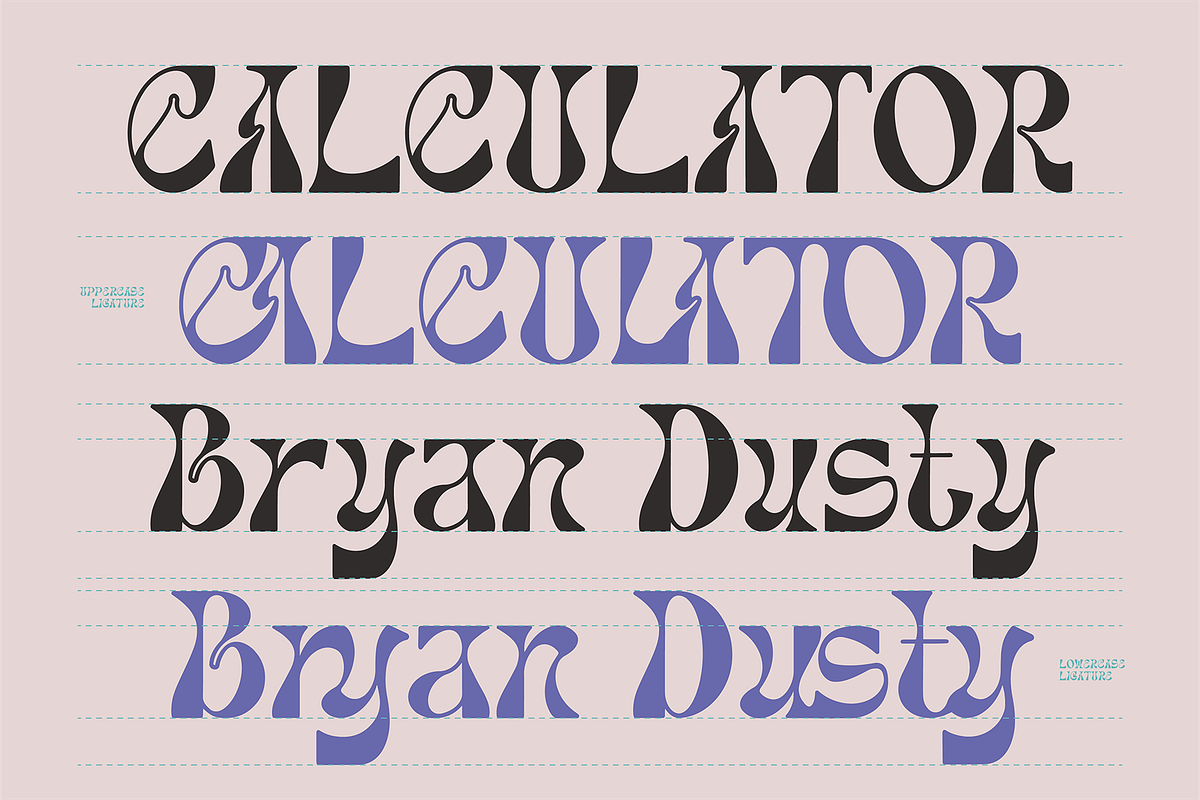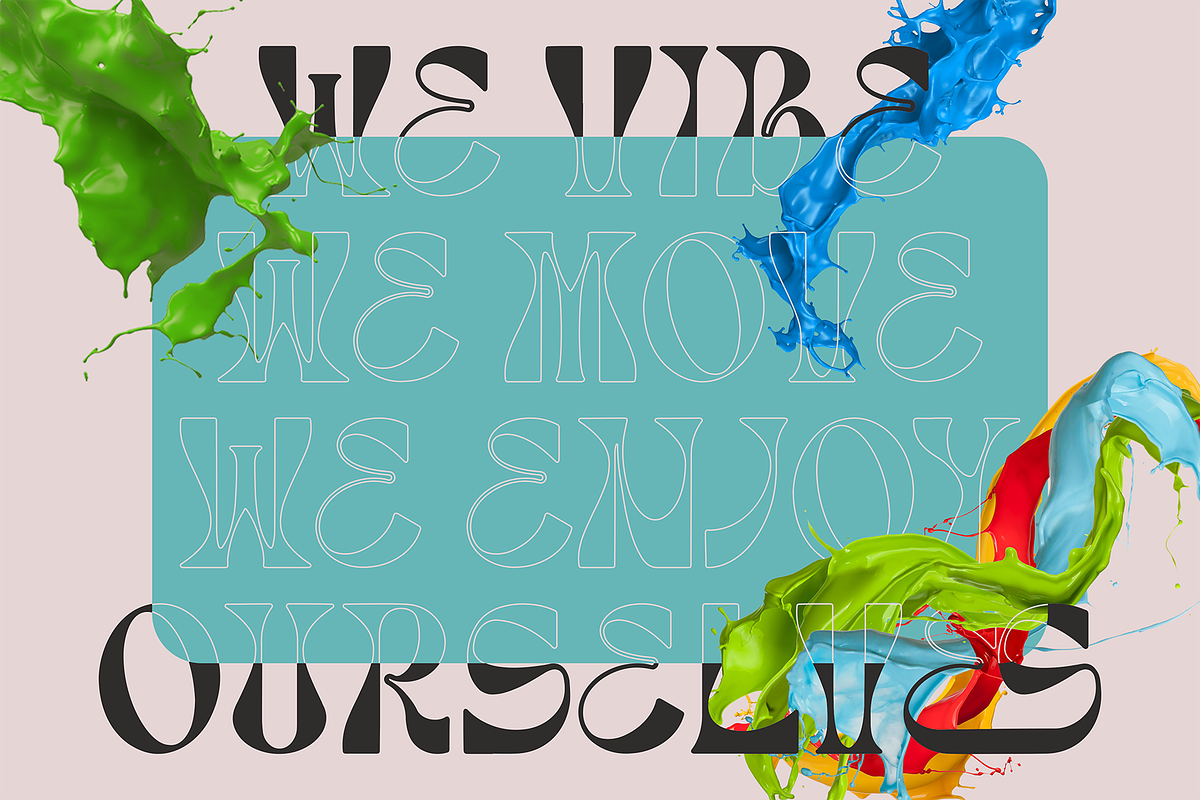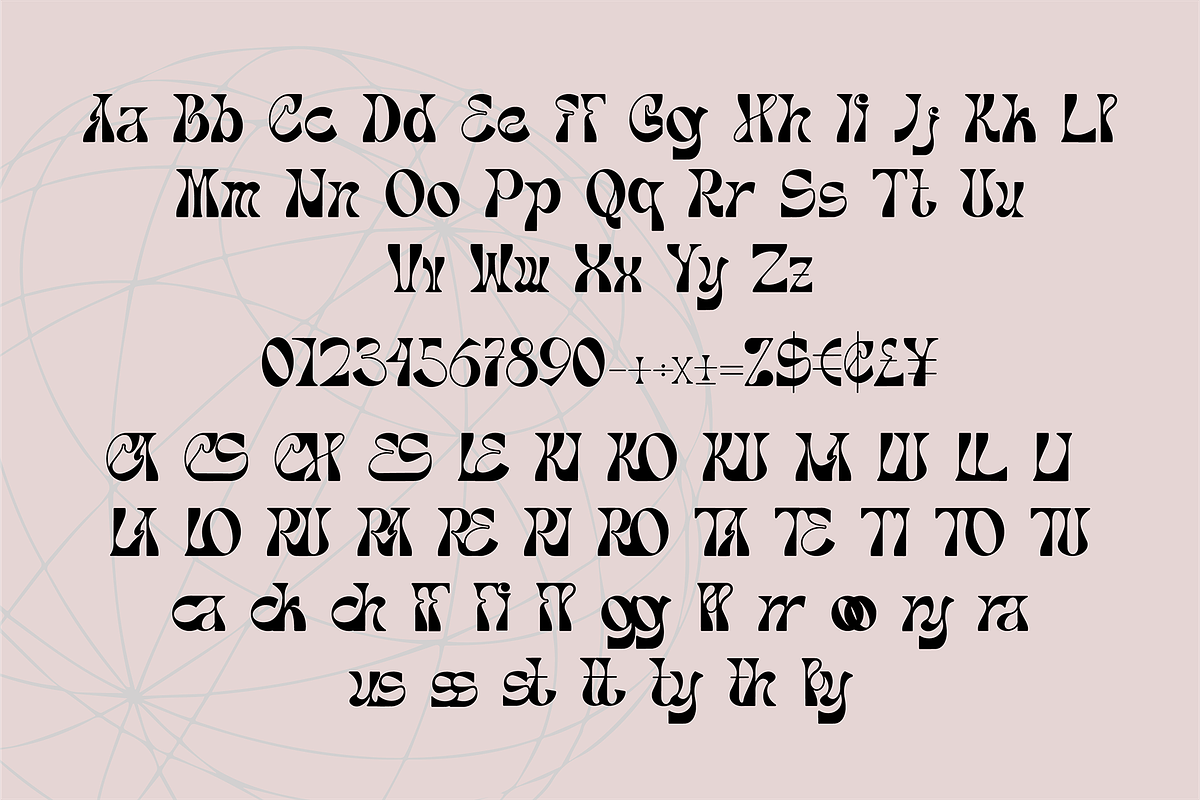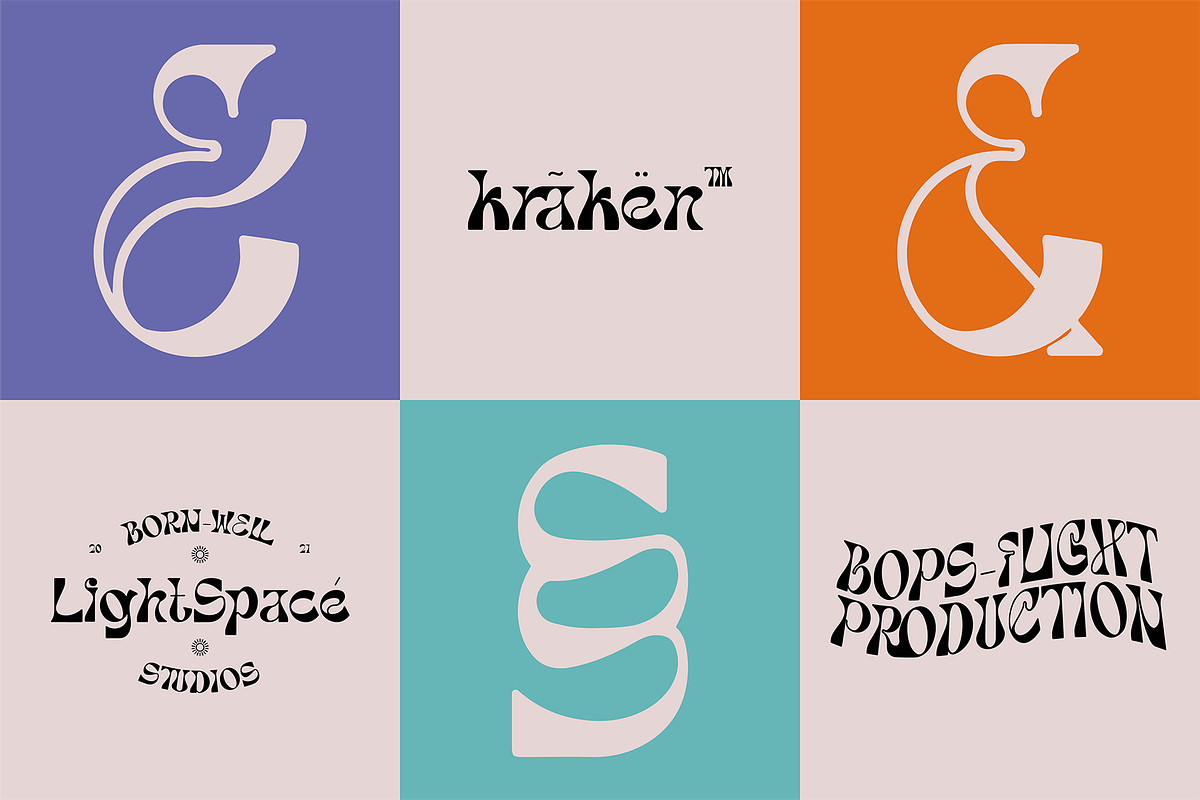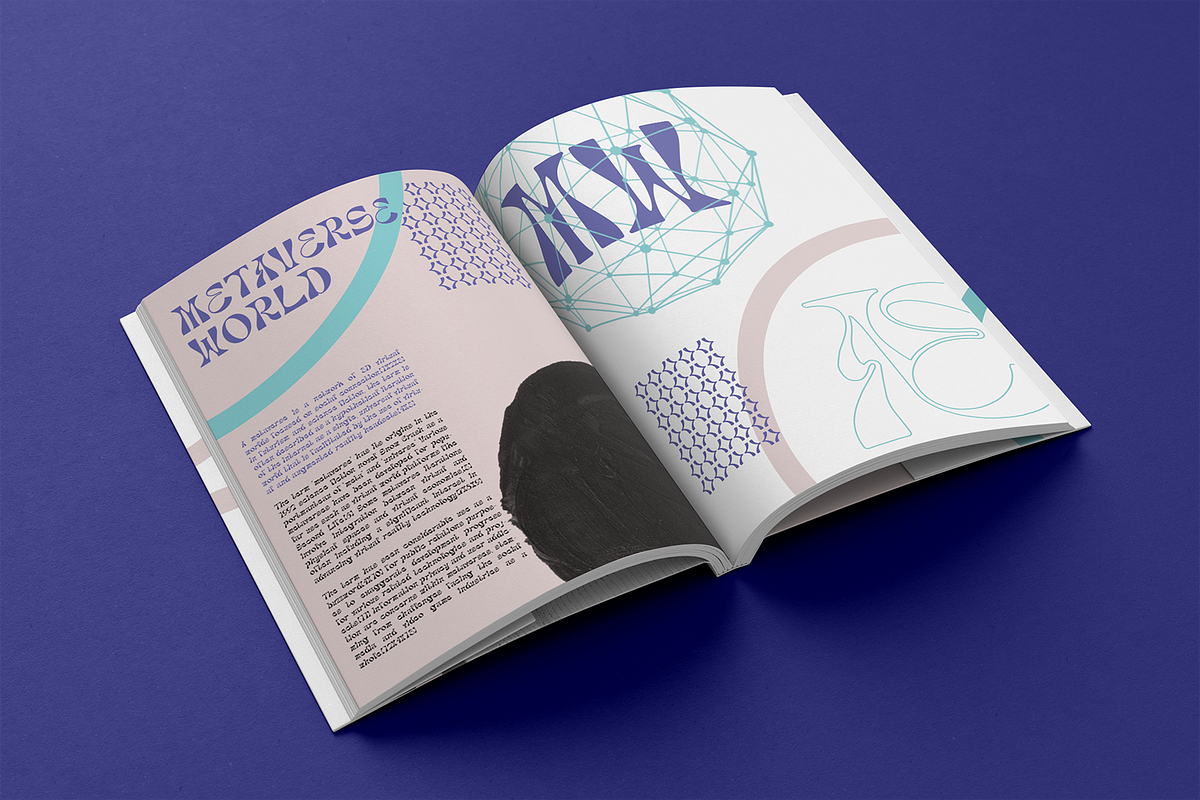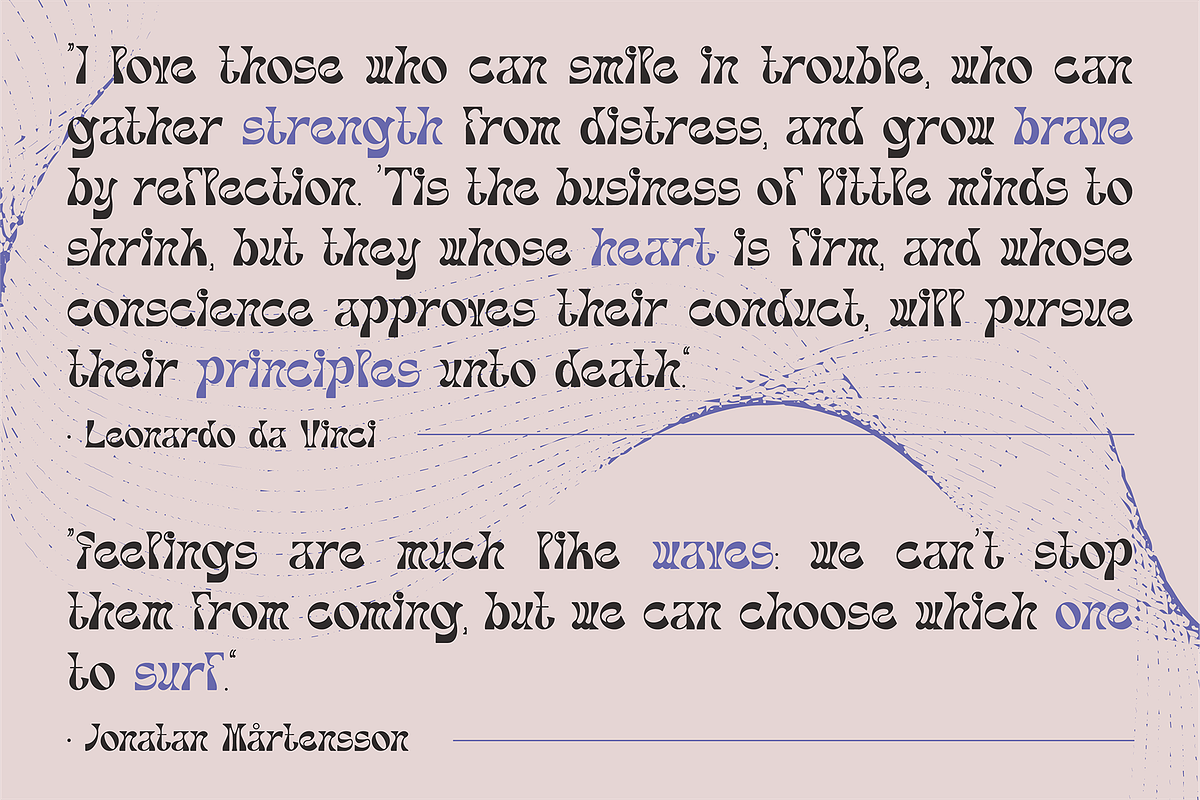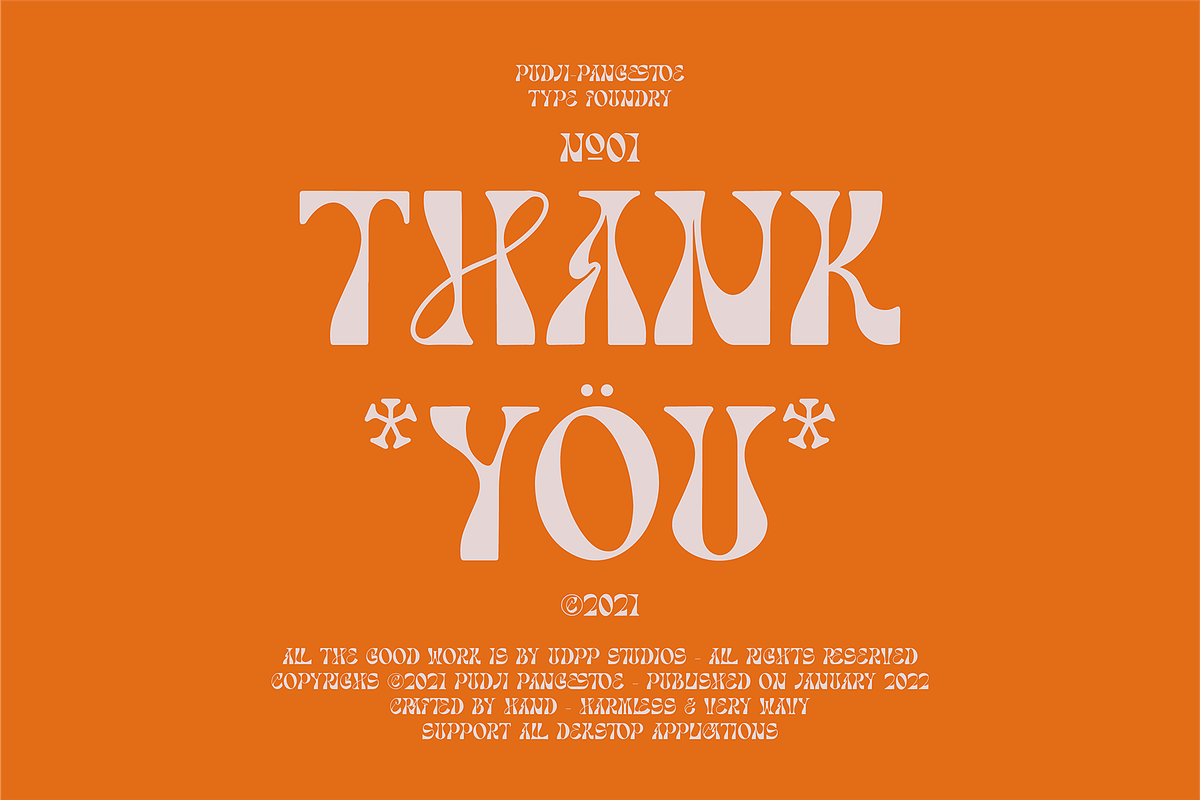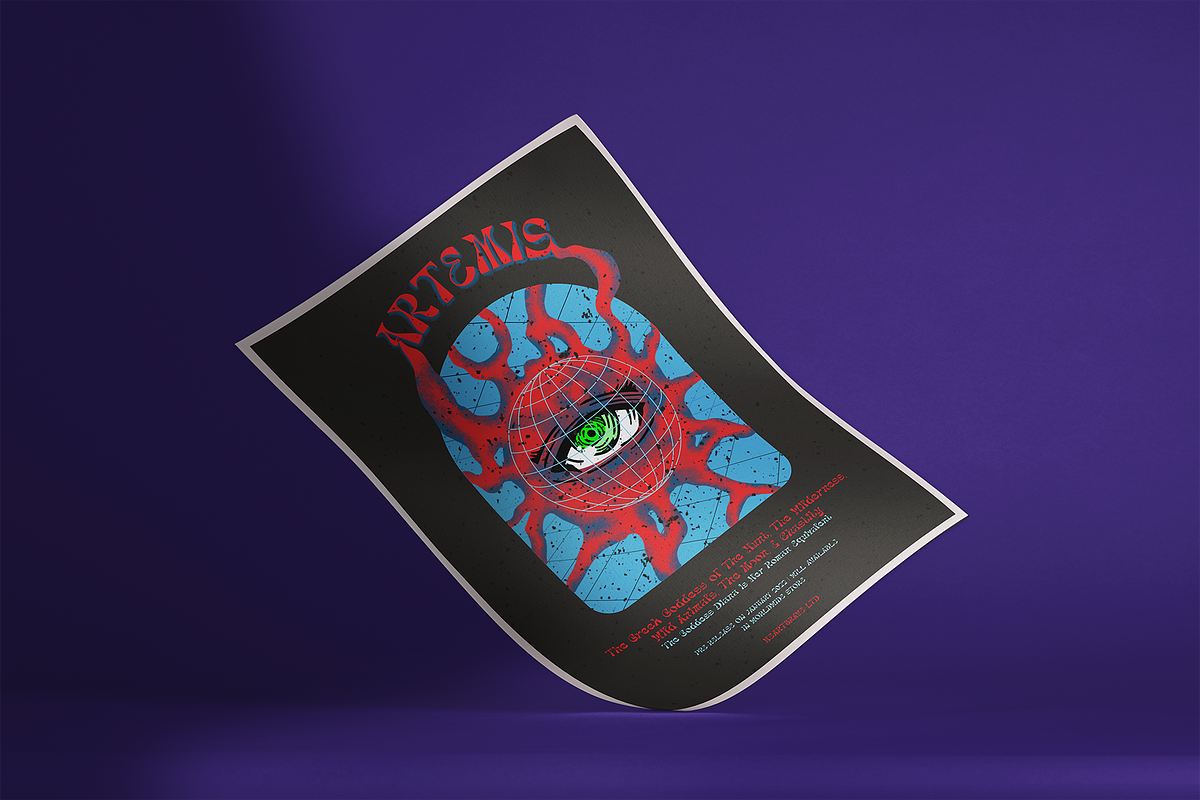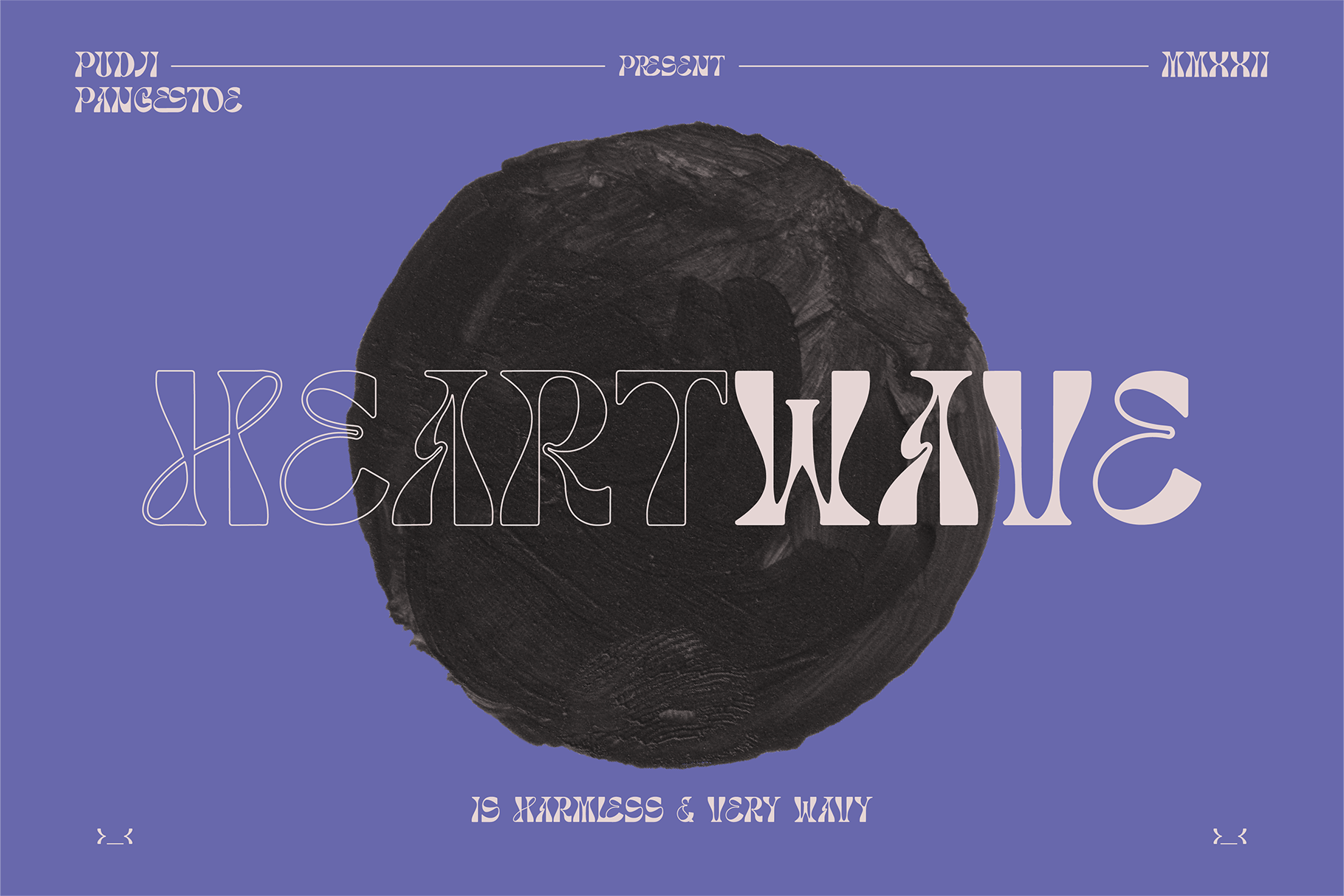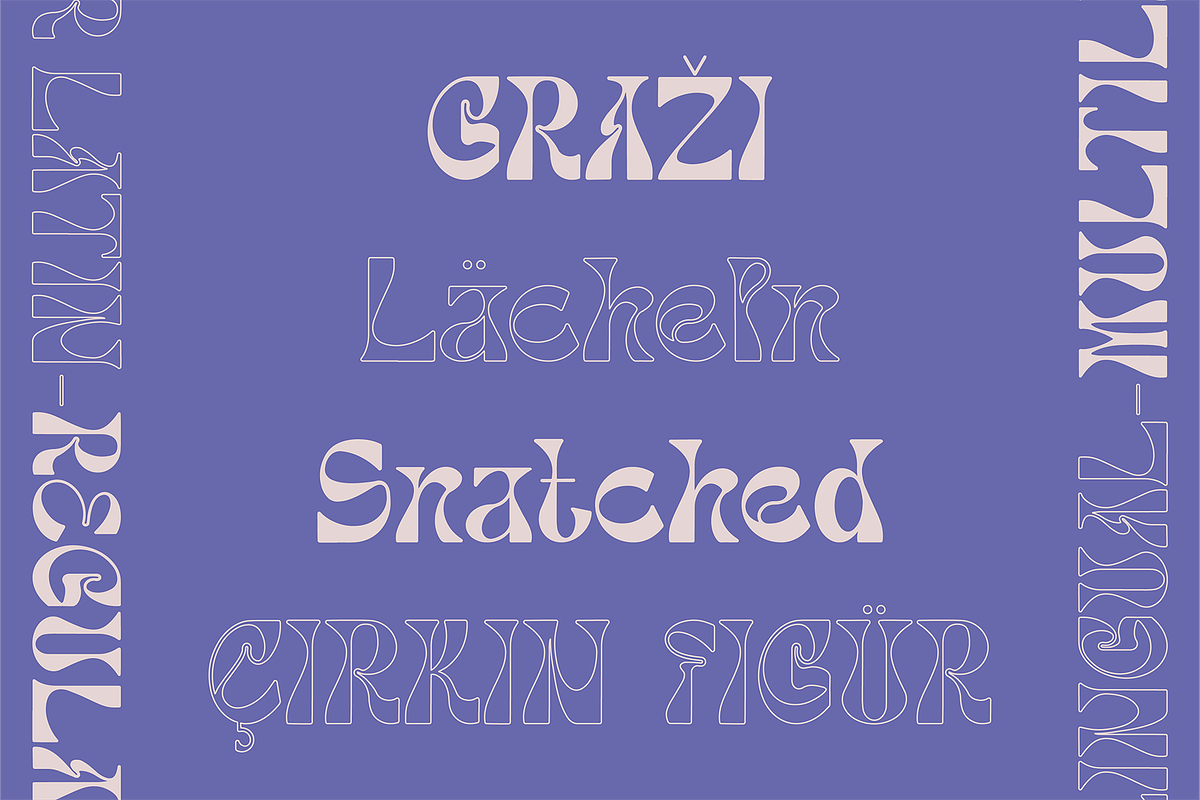
Heartwave Display Typeface
Heartwave is a handcraft display typeface that's inspired by old signs, 70's posters, and mixed with modern trend design.
Build manually by hand, and reform into a clean Typeface. Natural stroke from original hand-lettering. It can be used for just Titles or even writing.